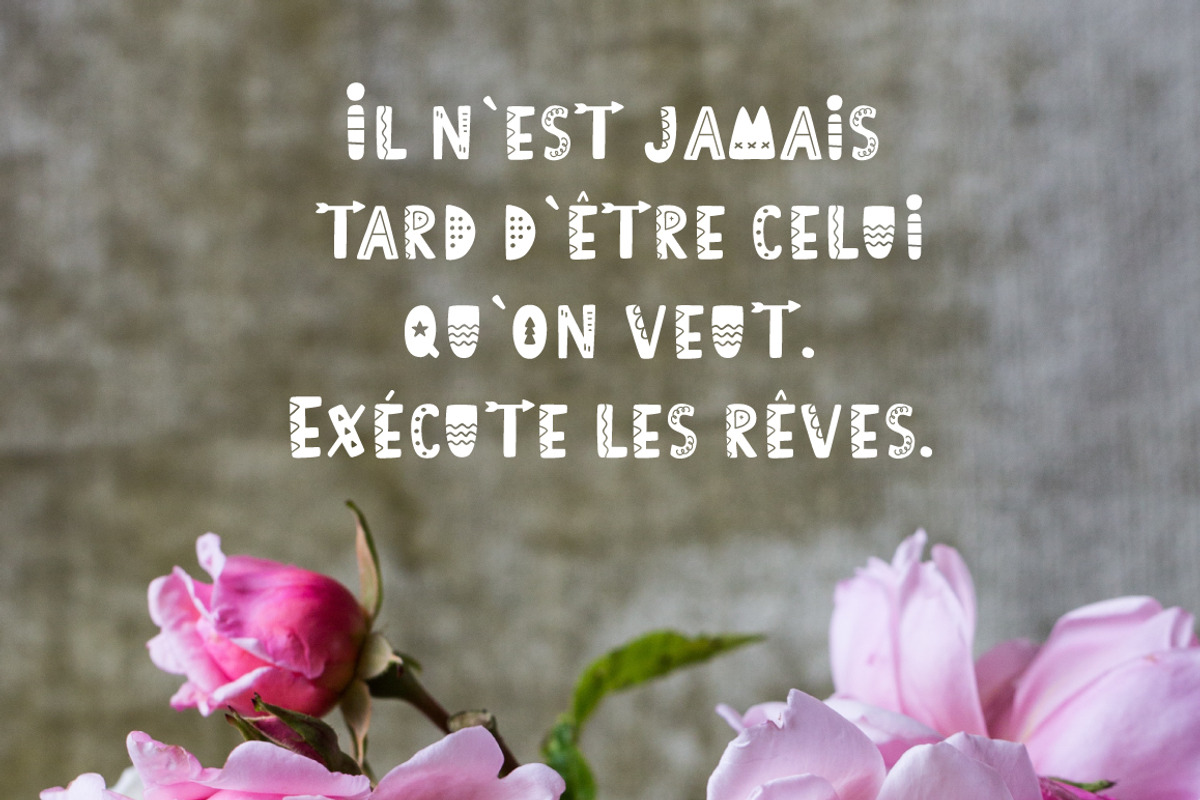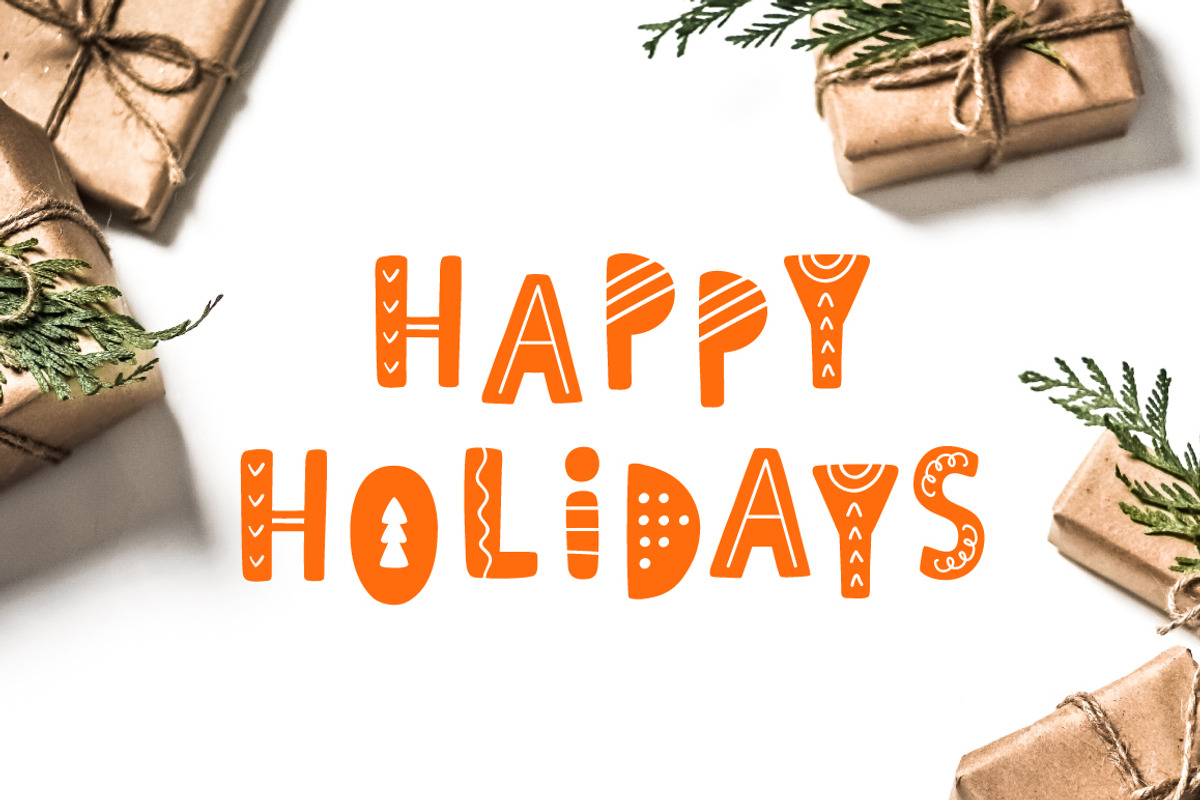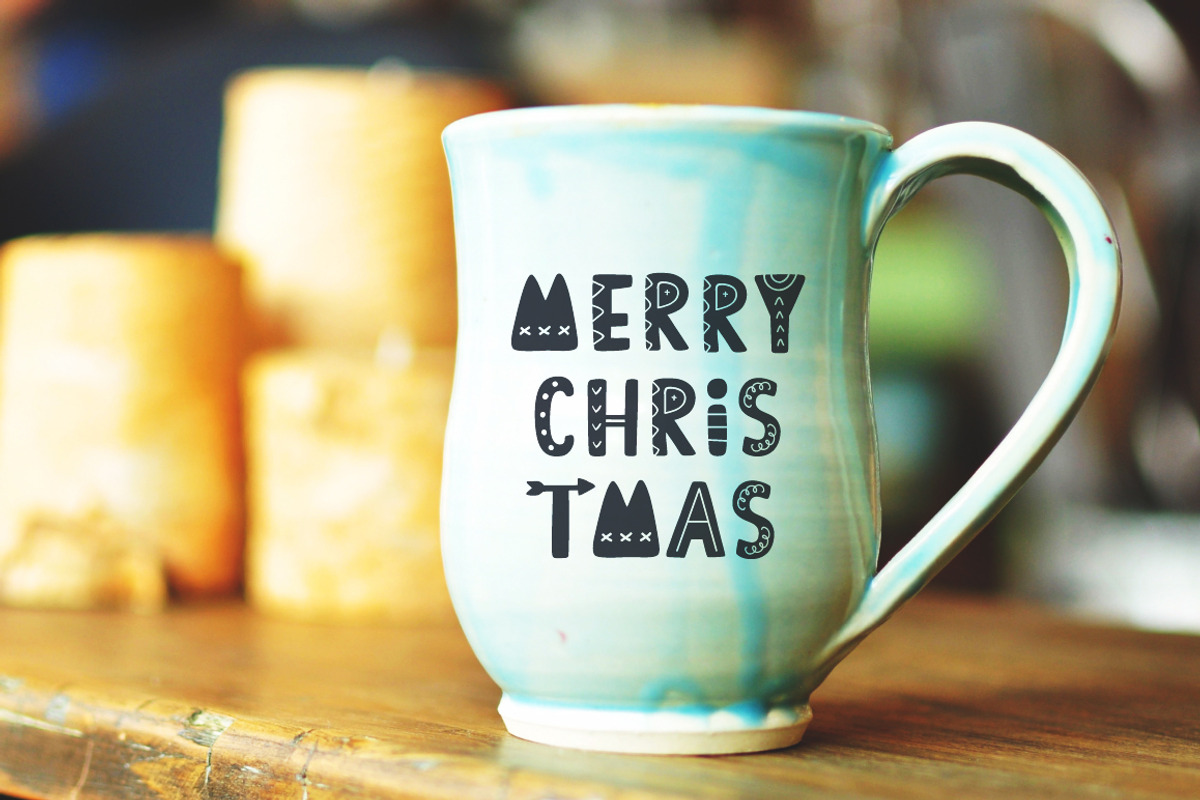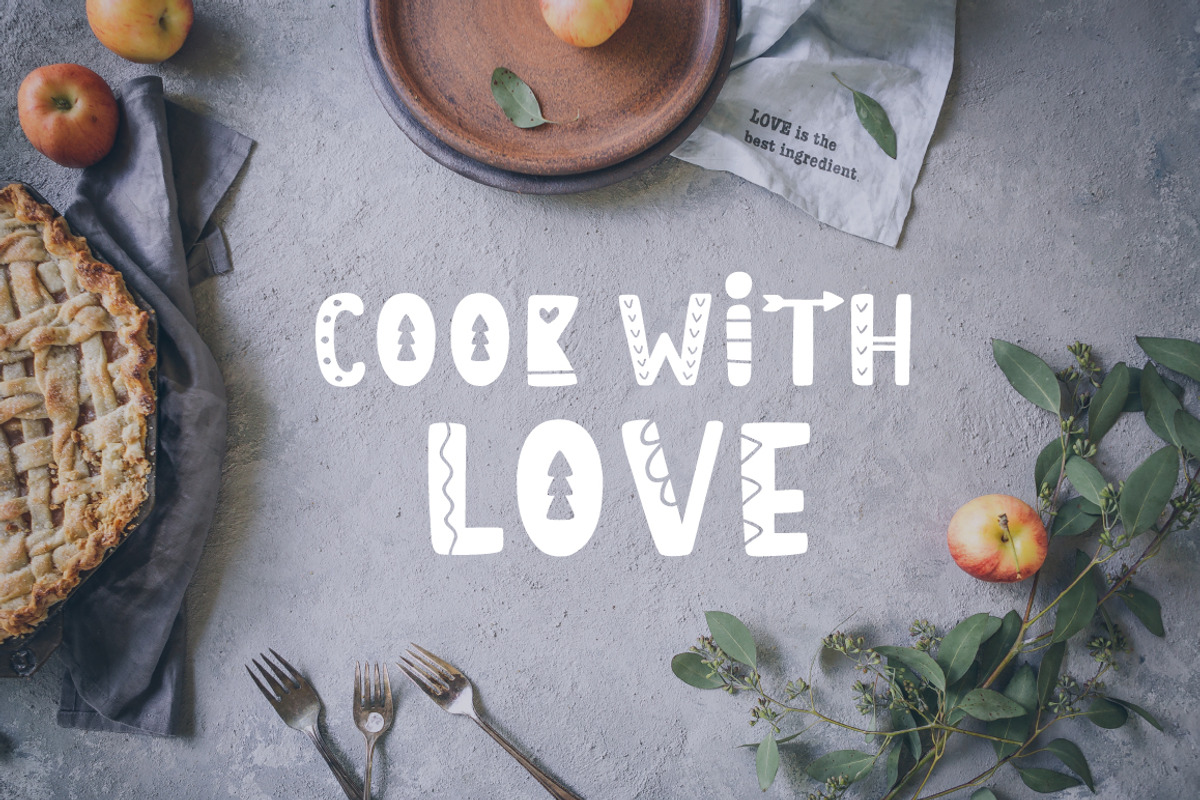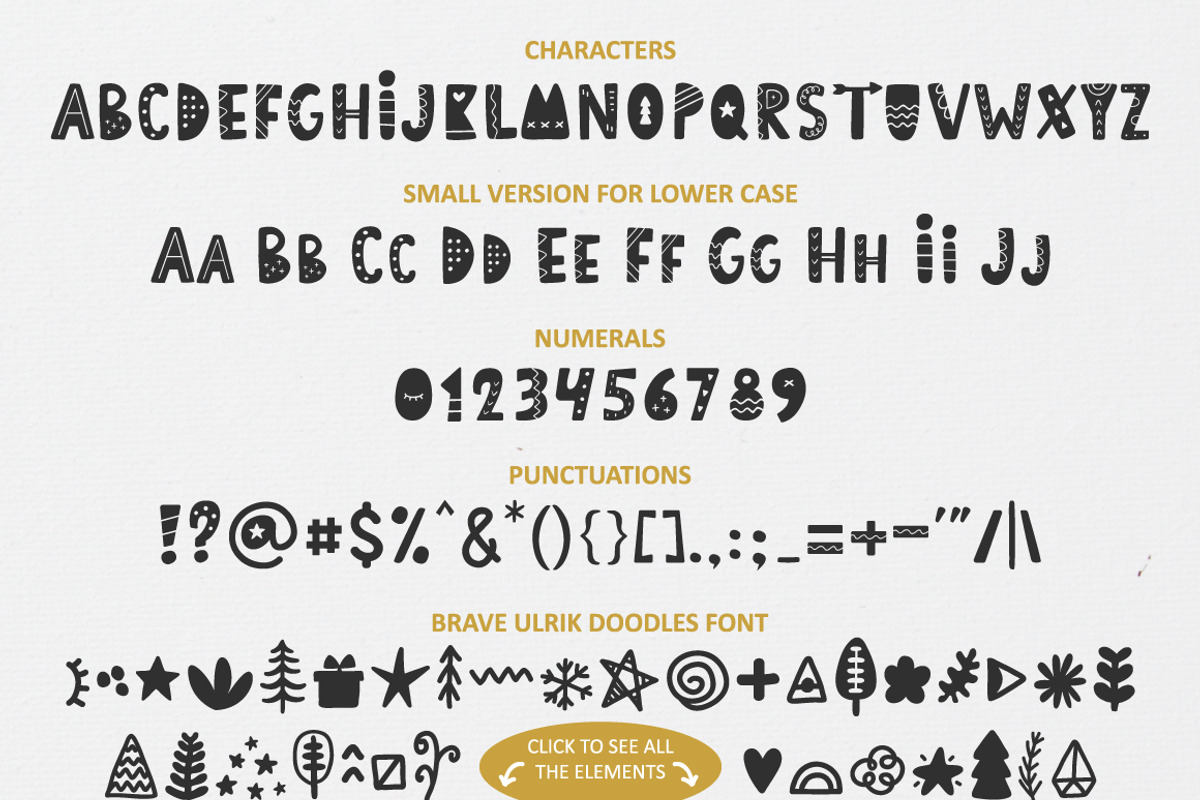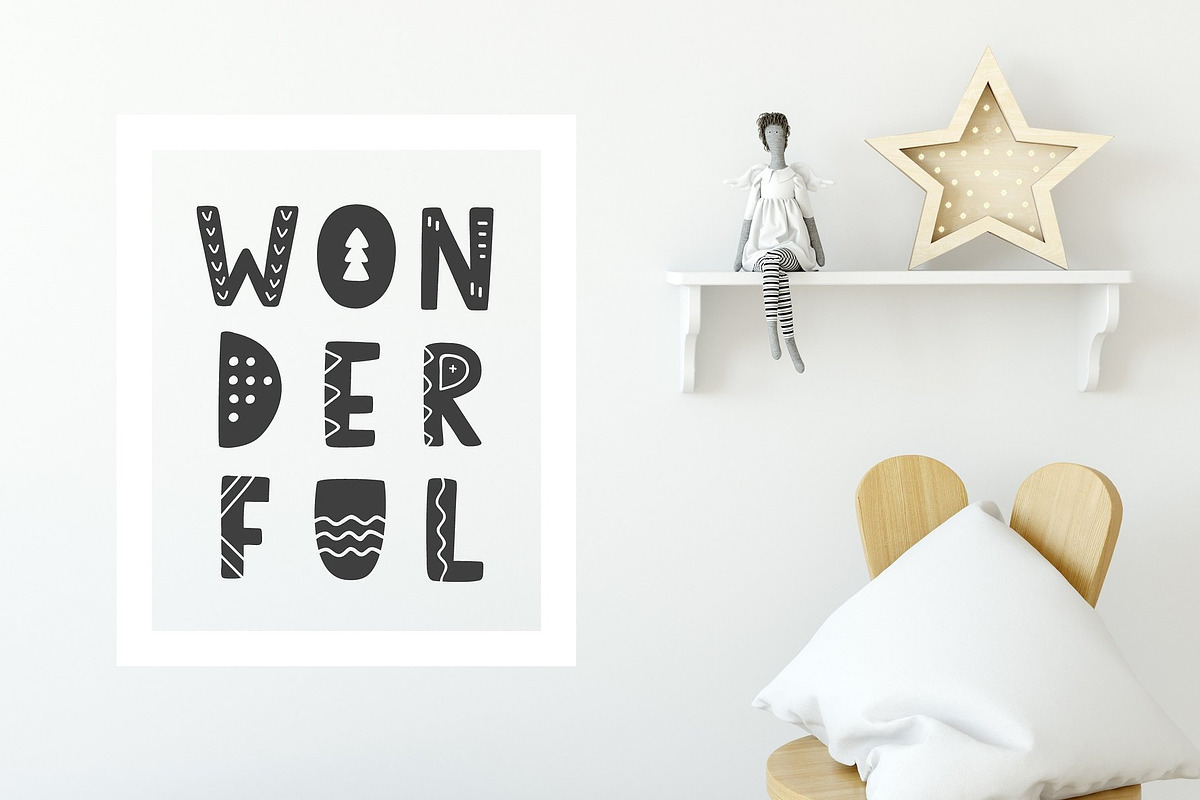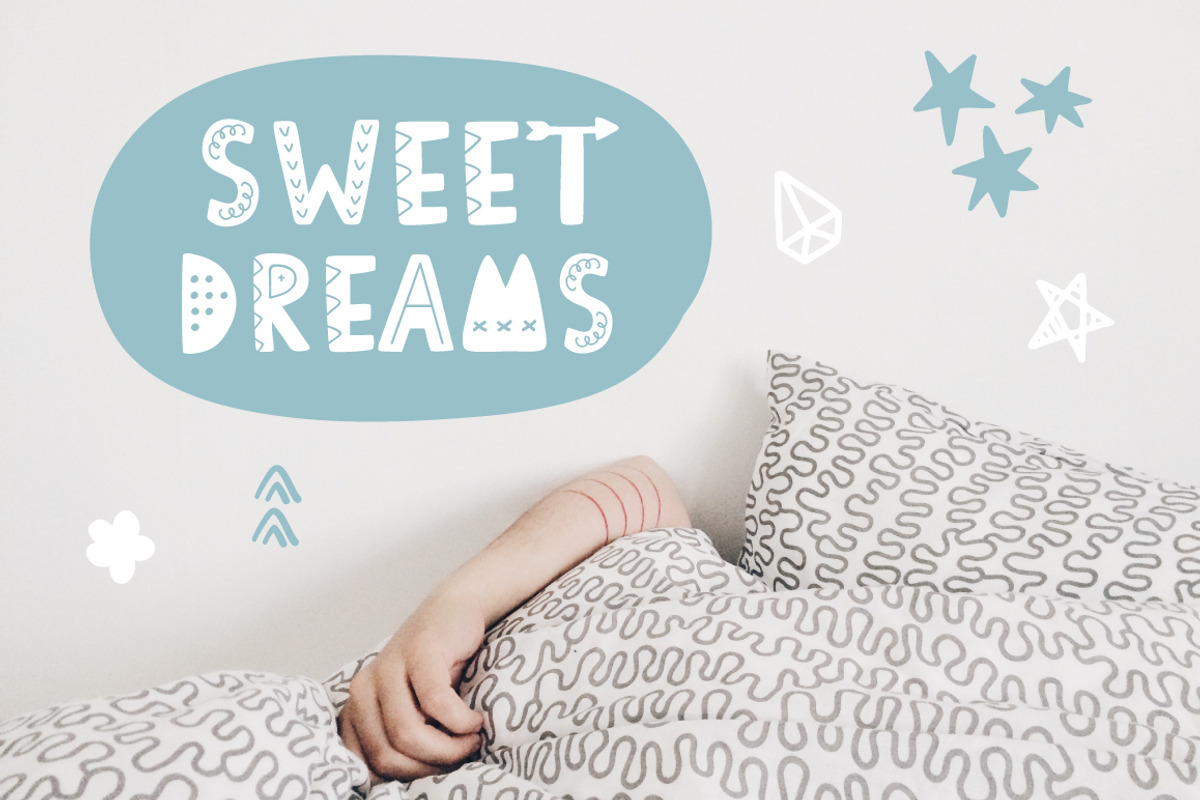
Brave Ulrik Scandinavian Font
Hey everyone! I'm glad to introduce you new Brave Ulrik Scandinavian Font!
Brave Ulrik font family is perfect for invitation cards, logos, kids T-shirt print, books, mugs, web, cover design. Mix letters, numbers and doodle symbols and use it for your unique projects in most languages!
Brave Ulrik includes Decorative Kids Scandinavian Font and Fun Doodle Symbols Font. Brave Ulrik font includes CAPS only but It has smaller version for lower case too. It has numbers, accents, special characters and really HUGE language support. Here are the most popular languages (to see all languages please click on screenshots):
- Brave Ulrik includes Decorative Kids Scandinavian Font and Fun Doodle Symbols Font.
- Brave Ulrik font includes CAPS only but It has smaller version for lower case too.
- Brave Ulrik includes Decorative Kids Scandinavian Font and Fun Doodle Symbols Font.
- Brave Ulrik font includes CAPS only but It has smaller version for lower case too.
- It has numbers, accents, special characters and really HUGE language support.
Why Brave Ulrik Scandinavian Font is worth a look
Brave Ulrik Scandinavian Font by Katrinelly fits naturally into Branding, posters, packaging, typography.